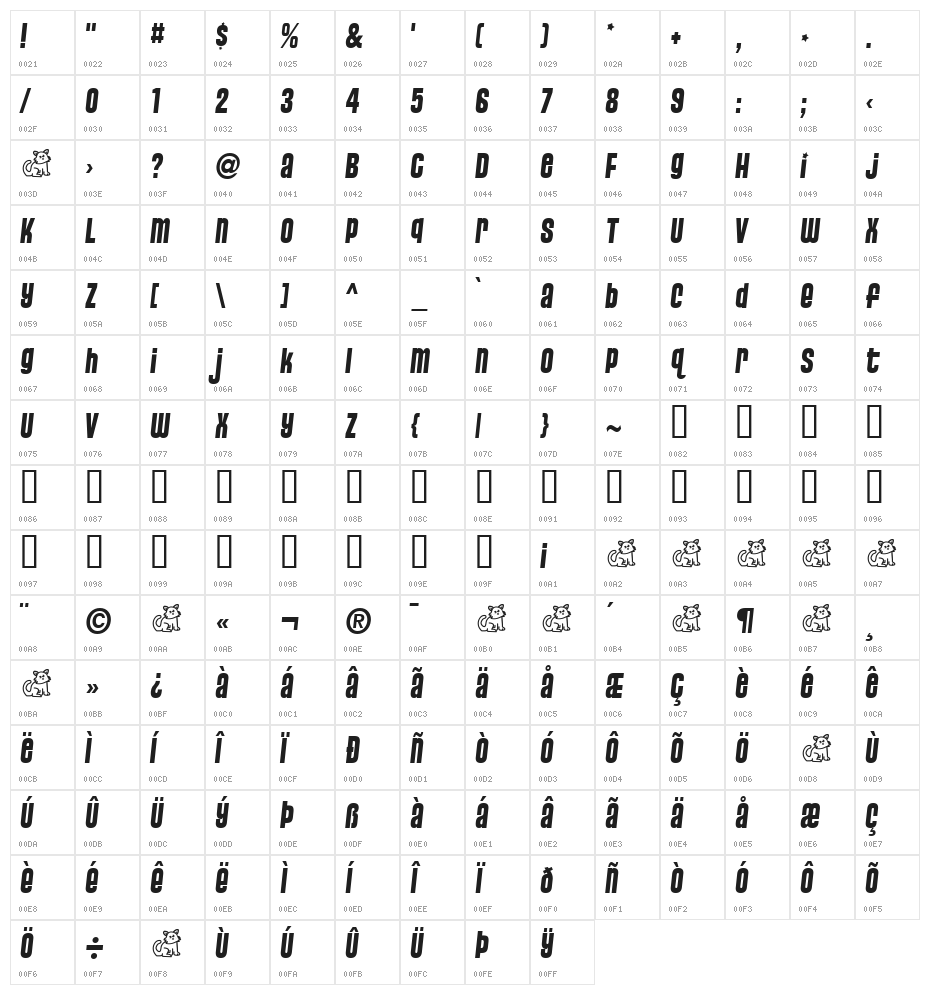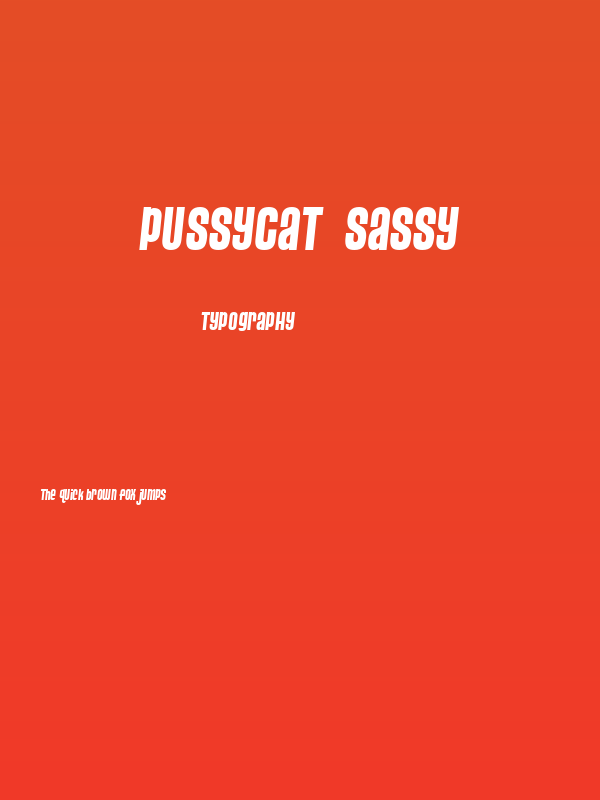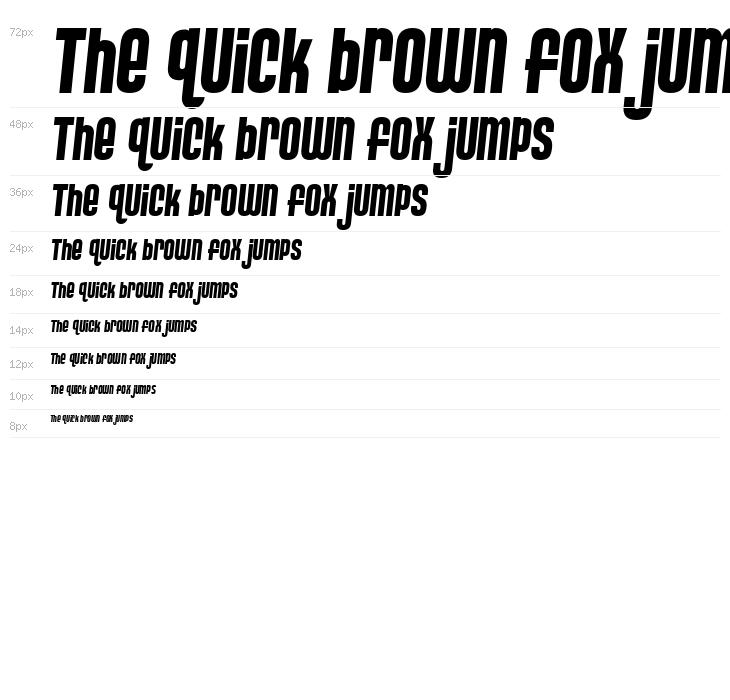
Pussycat Sassy Font
Pussycat Sassy Description
This font features a bold and playful design with a strong presence. The characters are slightly condensed, giving it a compact and energetic feel. The uppercase and lowercase letters maintain a consistent style, with a slight slant that adds a dynamic touch. The numbers are bold and clear, ensuring readability. Special characters are creatively designed, with some featuring star embellishments that enhance the font's playful nature. The overall style is modern and decorative, making it suitable for projects that require a fun and engaging typeface.
| Proposed Projects | Ideal for branding, posters, children's books, and playful graphic designs. |